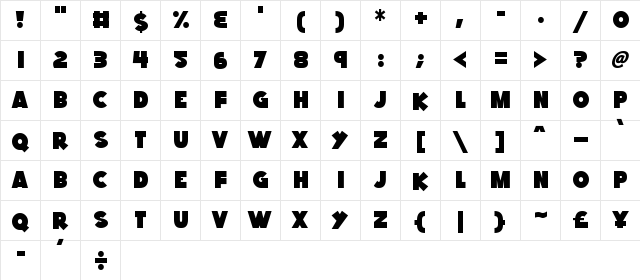
Kings Feast Regular
Design Context for Kings Feast Typeface
Kings Feast is a composed and adaptable typeface that performs quietly and consistently across a wide range of design contexts.
Pro Tip: Use Kings Feast in both headline and body roles to test its range before committing to a single application.